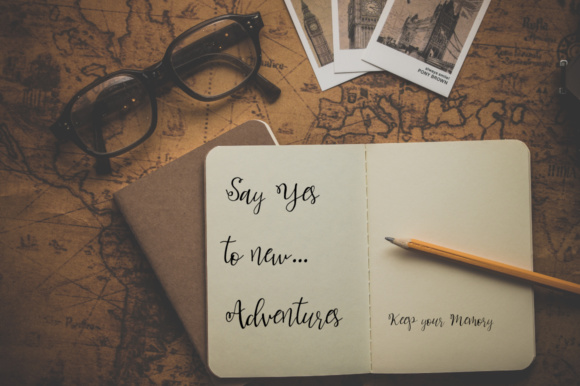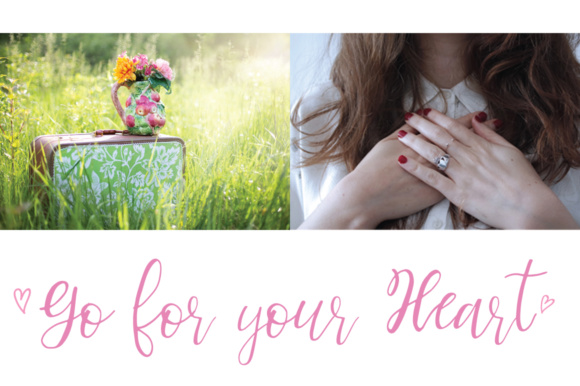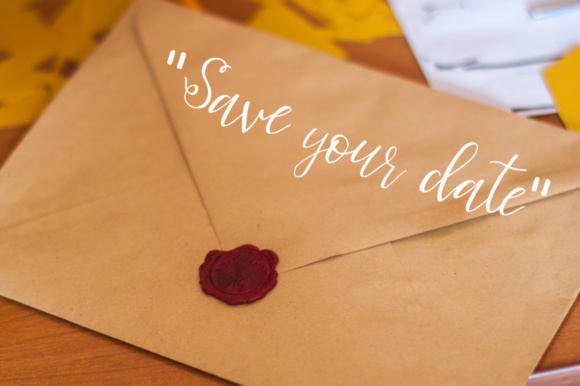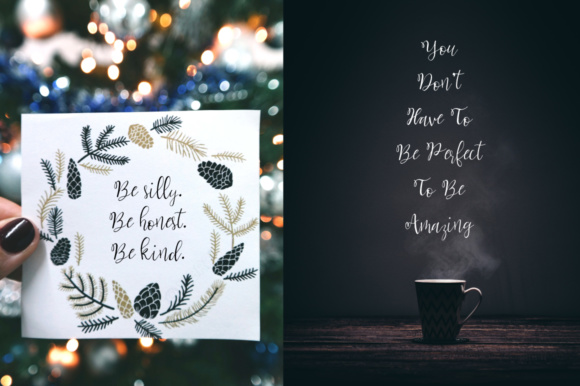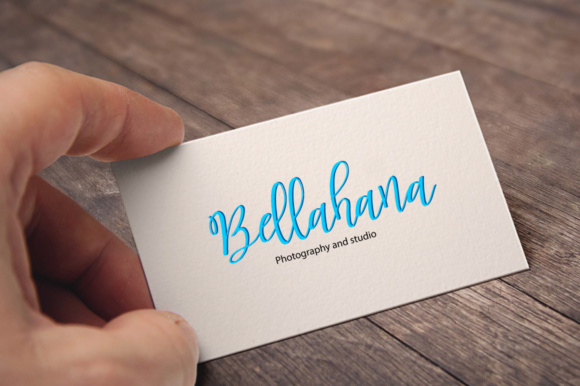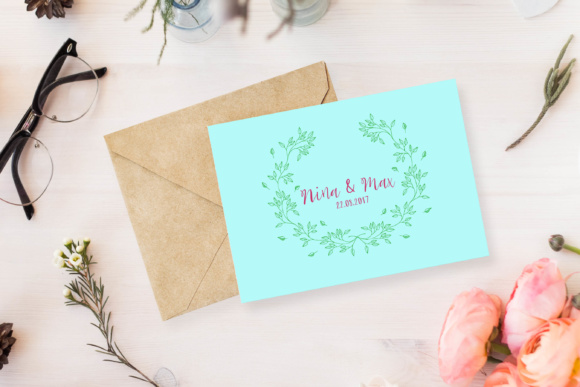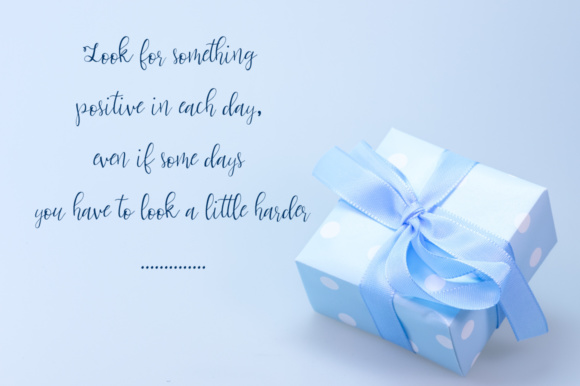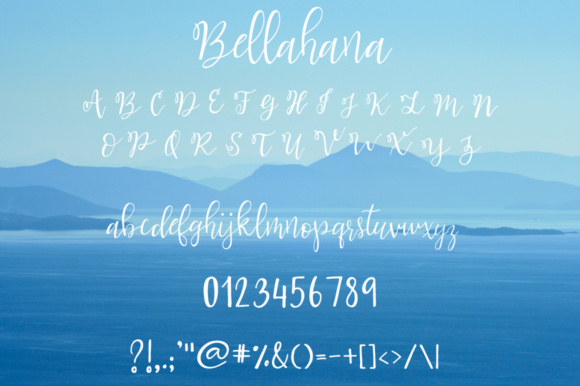
Bellahana Font
About Bellahana Font
Bellahana is a playful handwritten script.
It’s the perfect font for wedding invites, blog design, logo types or just more.